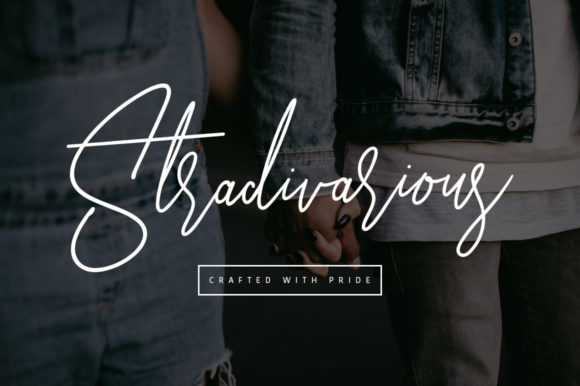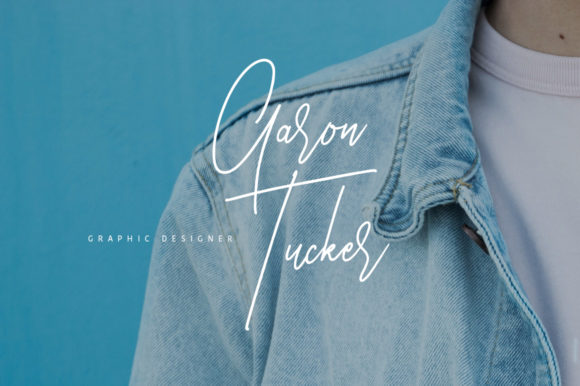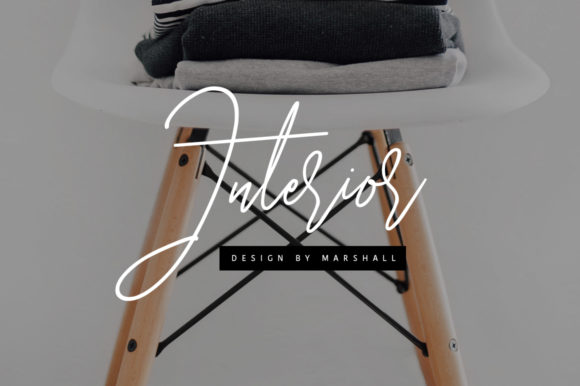
Berrta Font
About Berrta Font
Berrta is inspired by classic typography and brings its own unique style to any design project. Use it for packaging, branding, logos, social media post and anything that requires a sophisticated look!